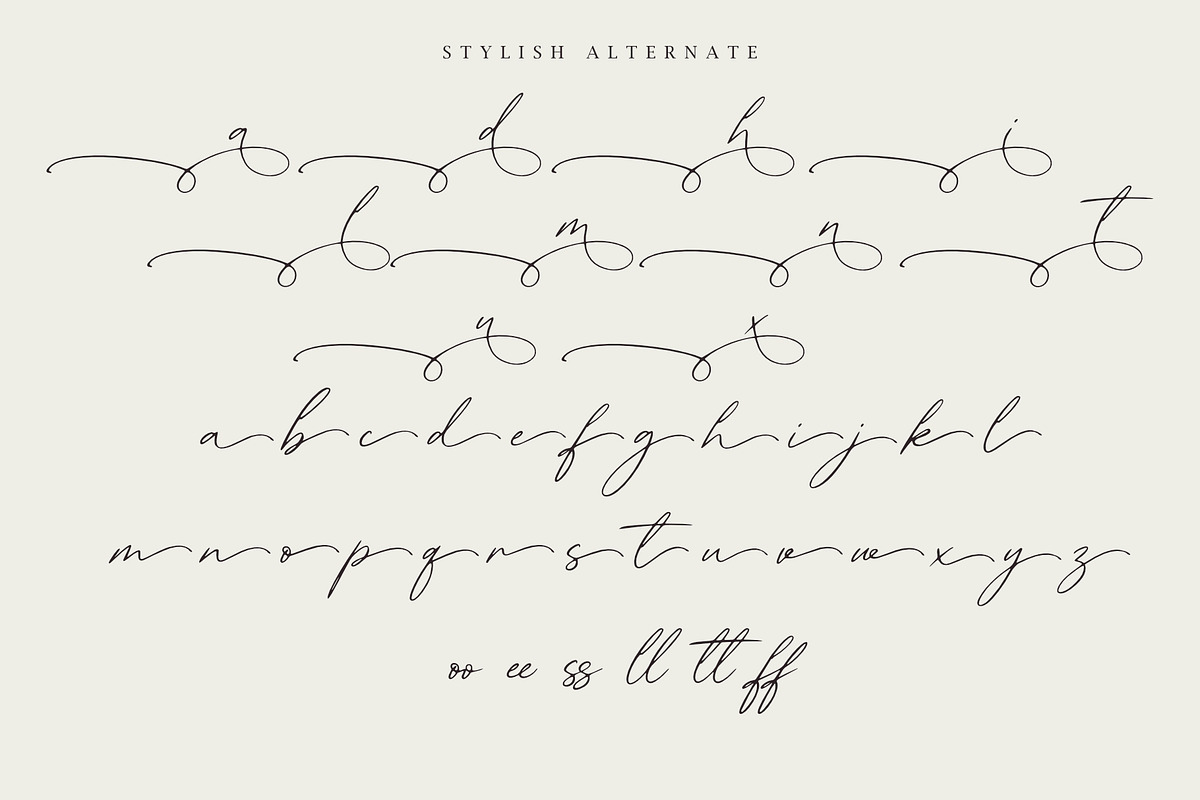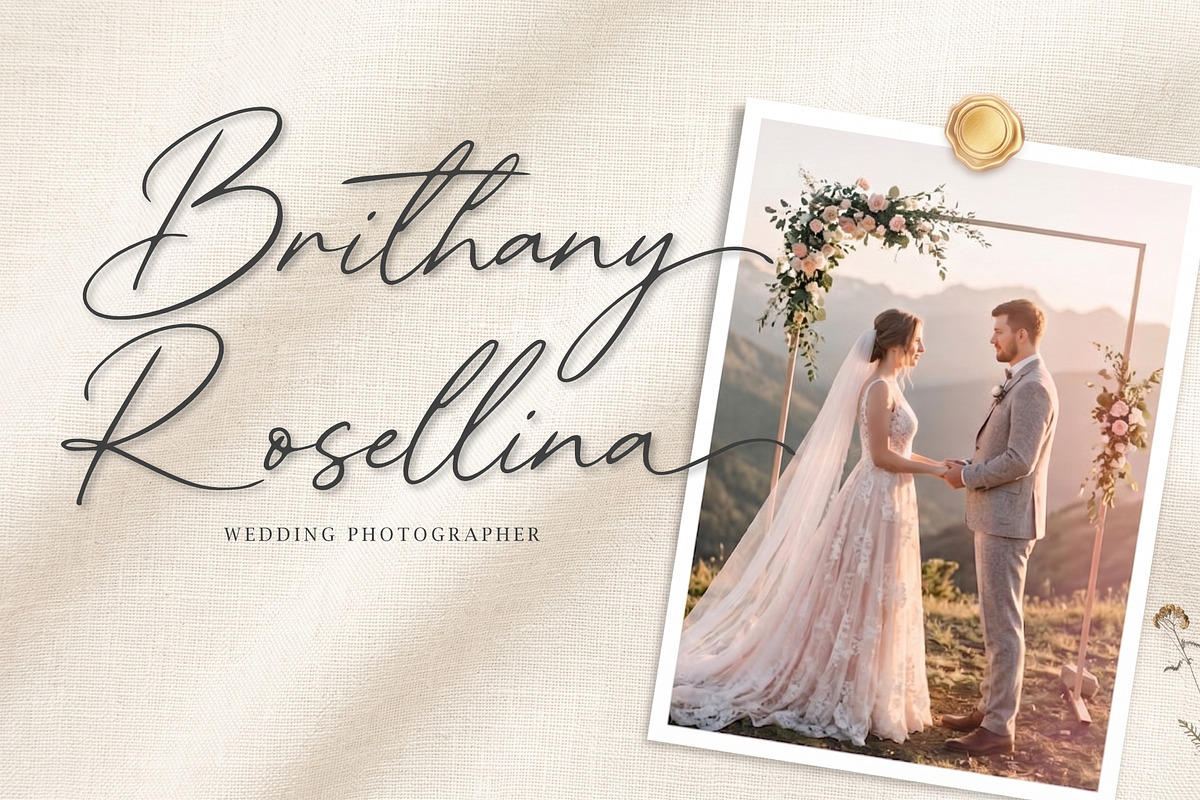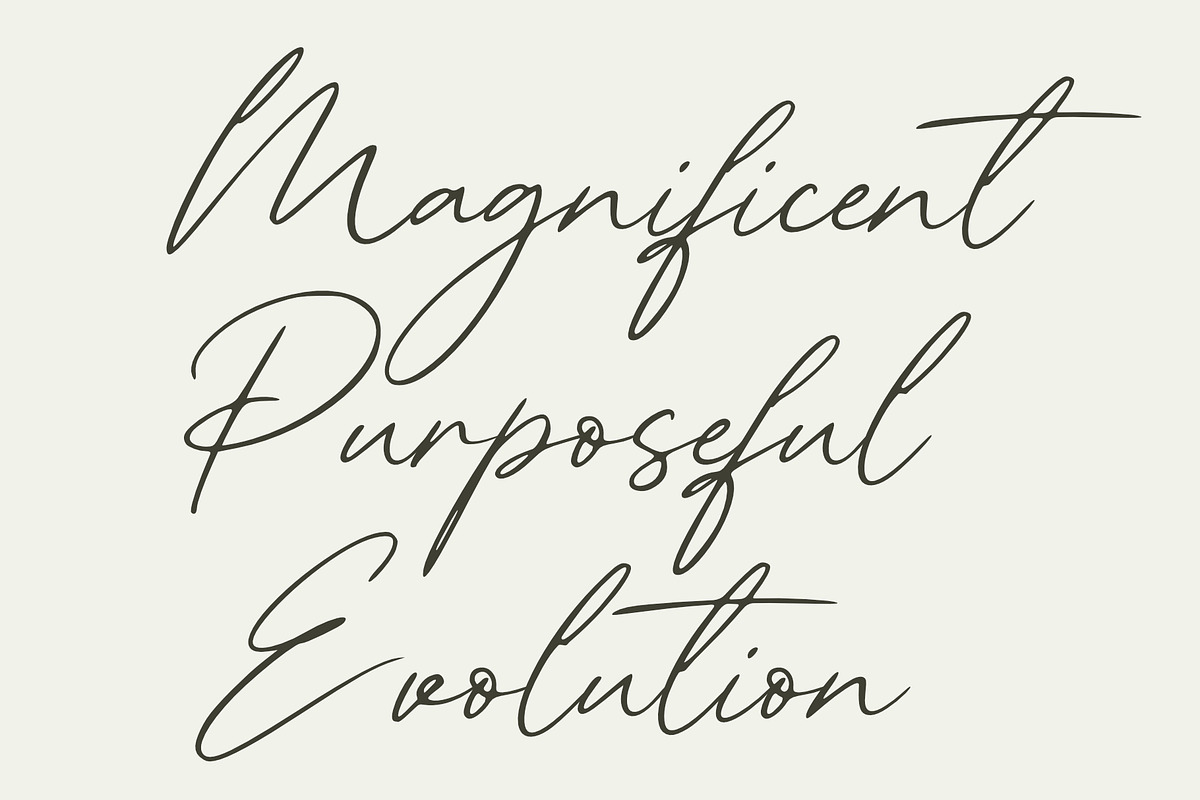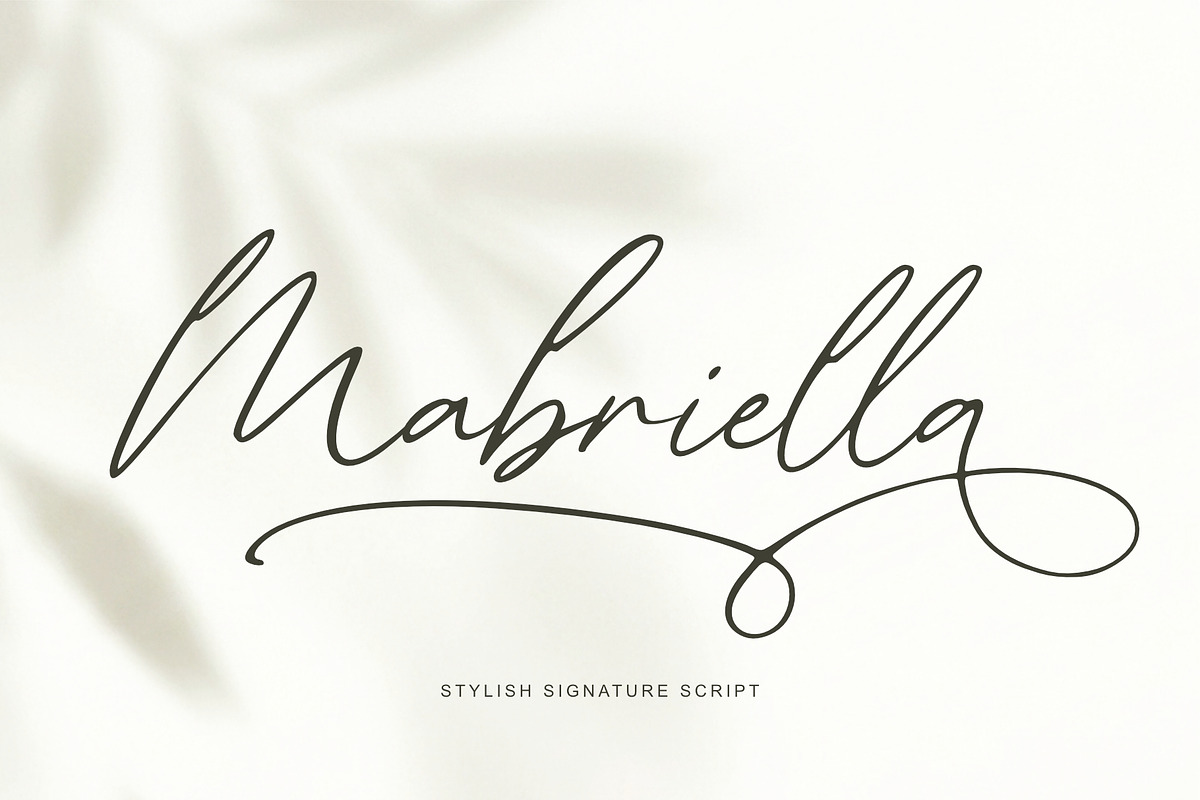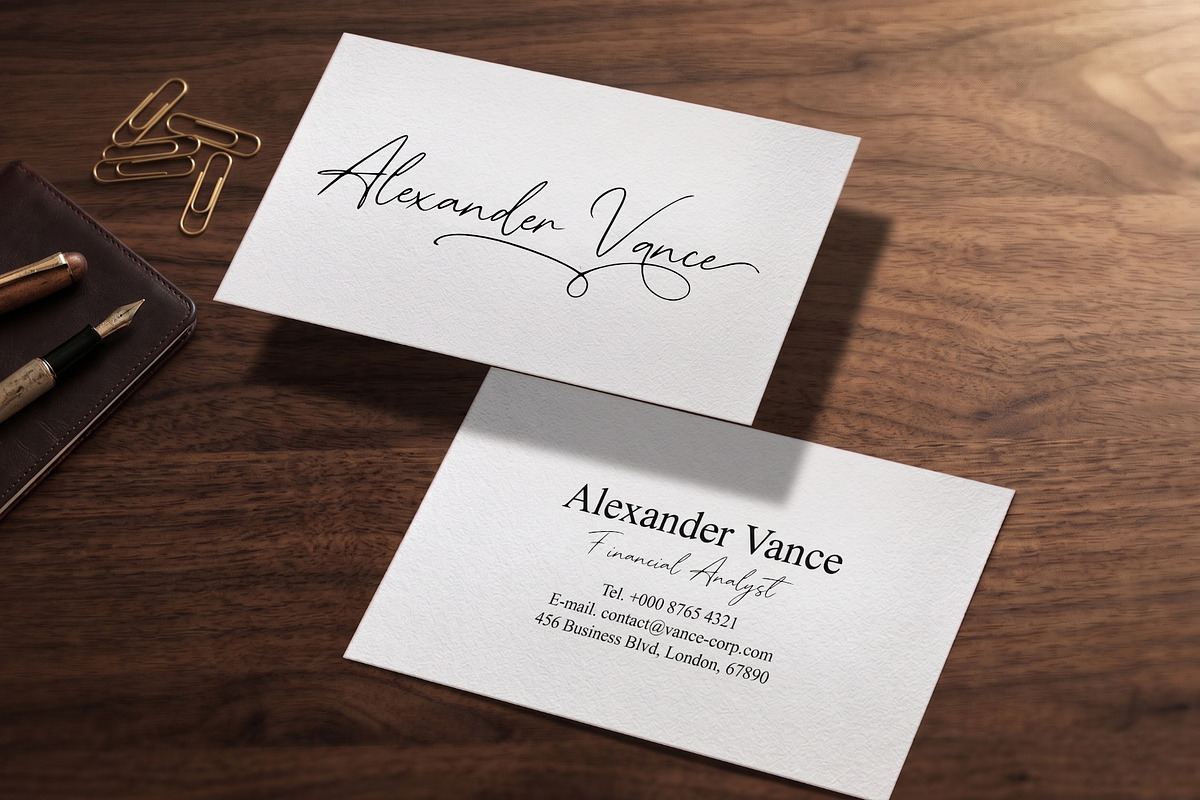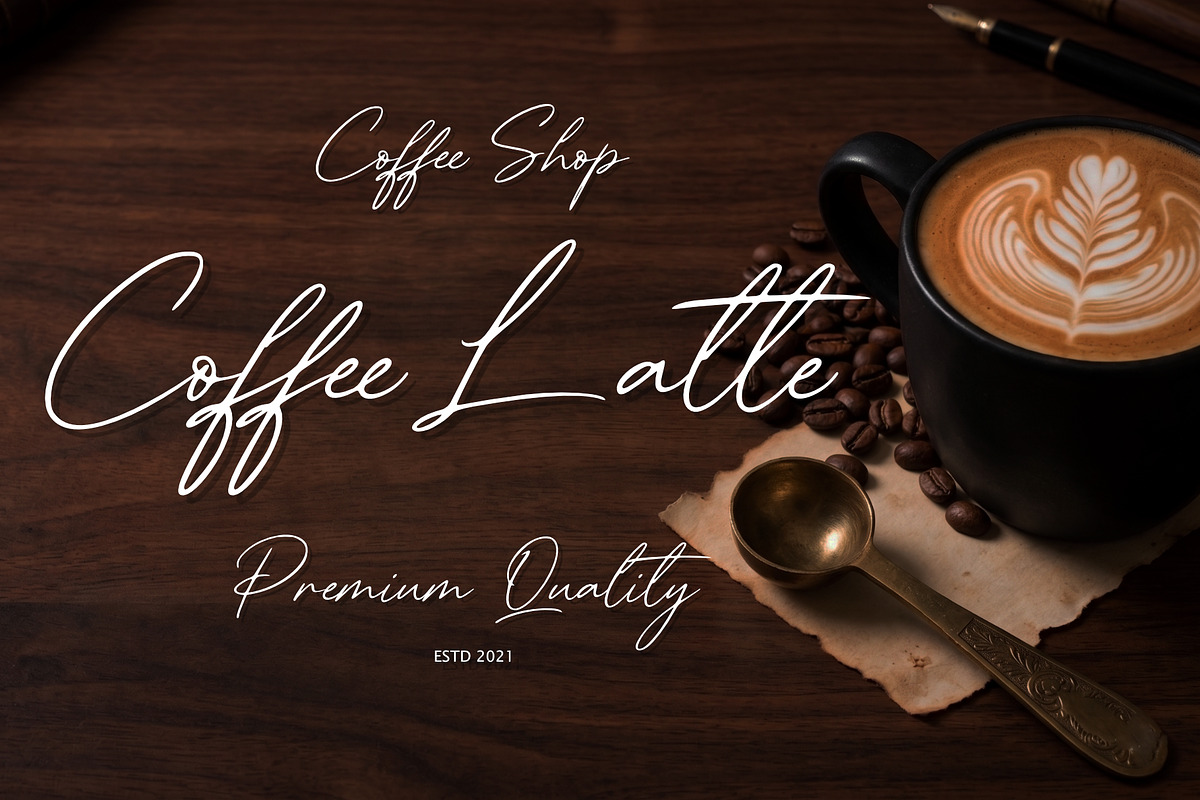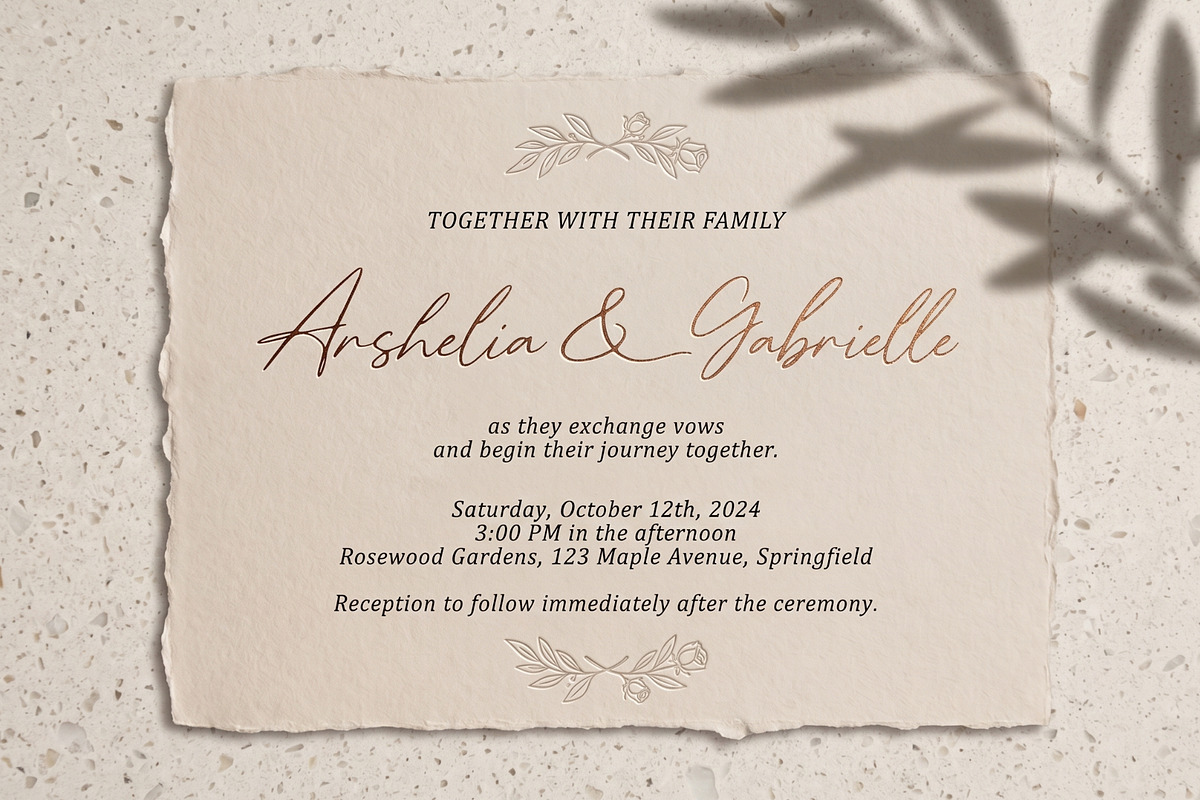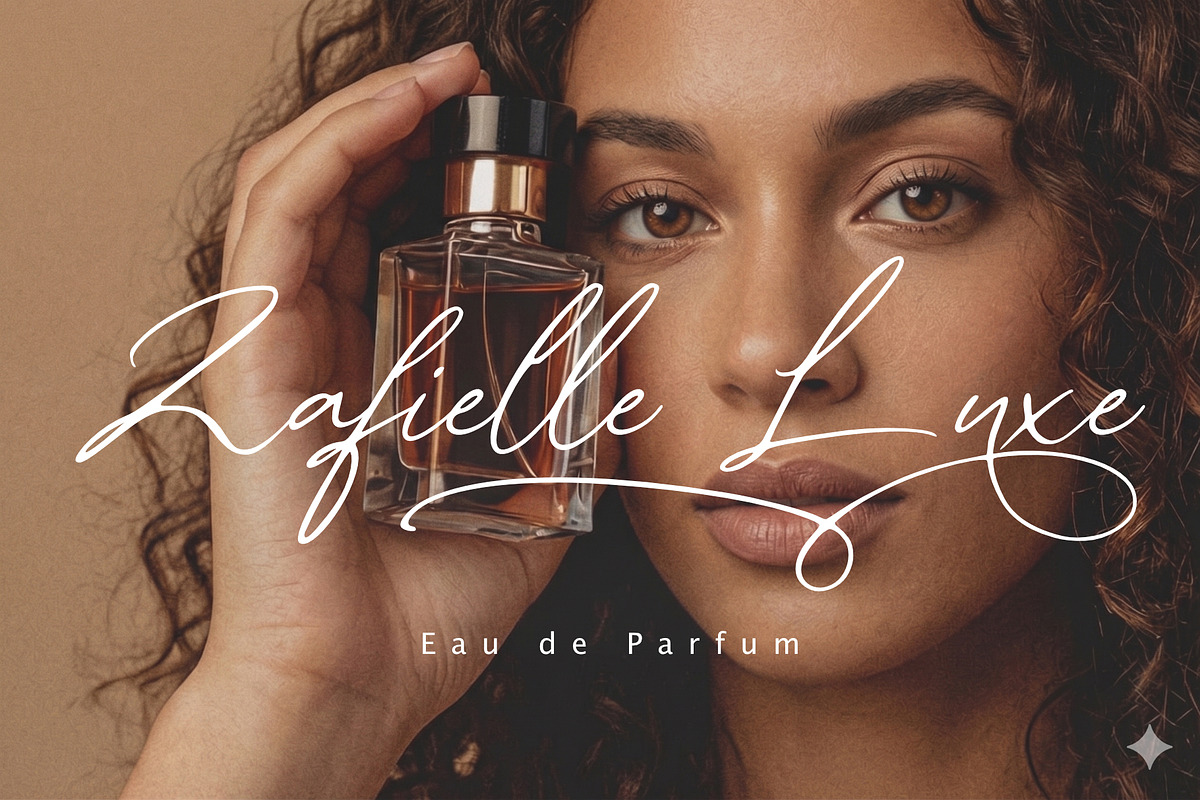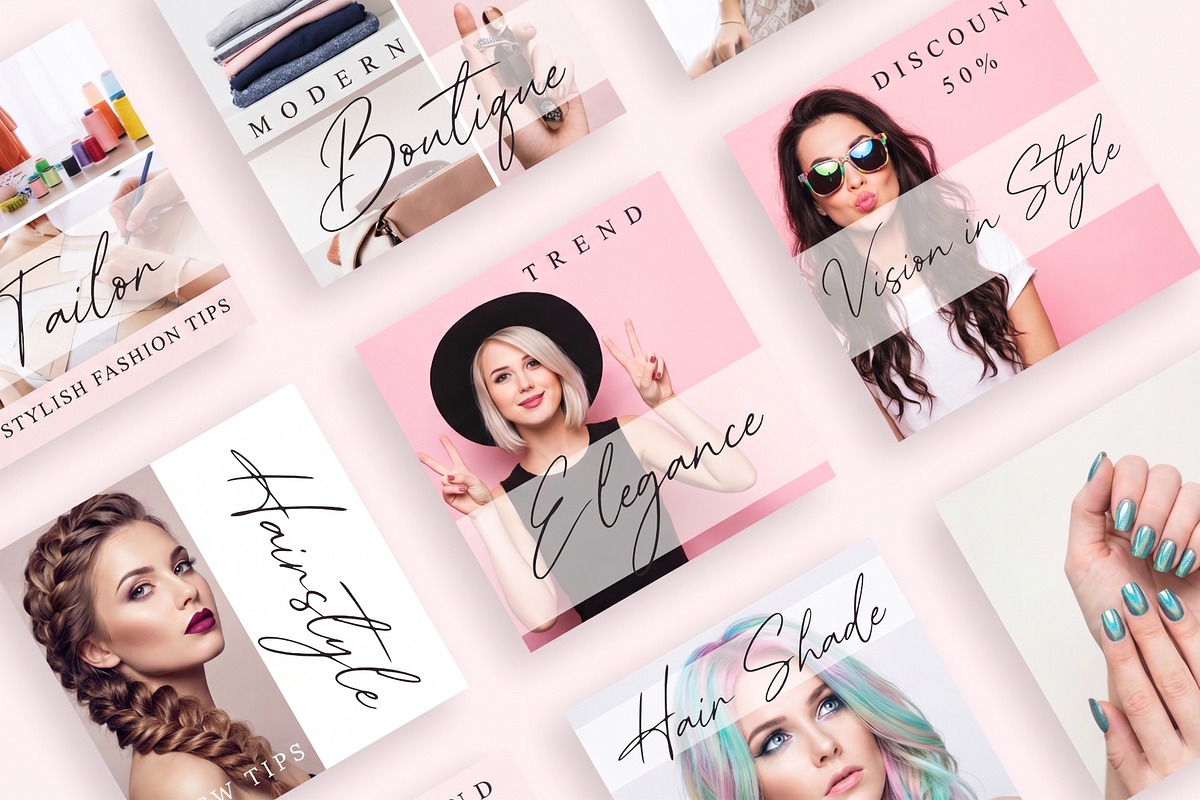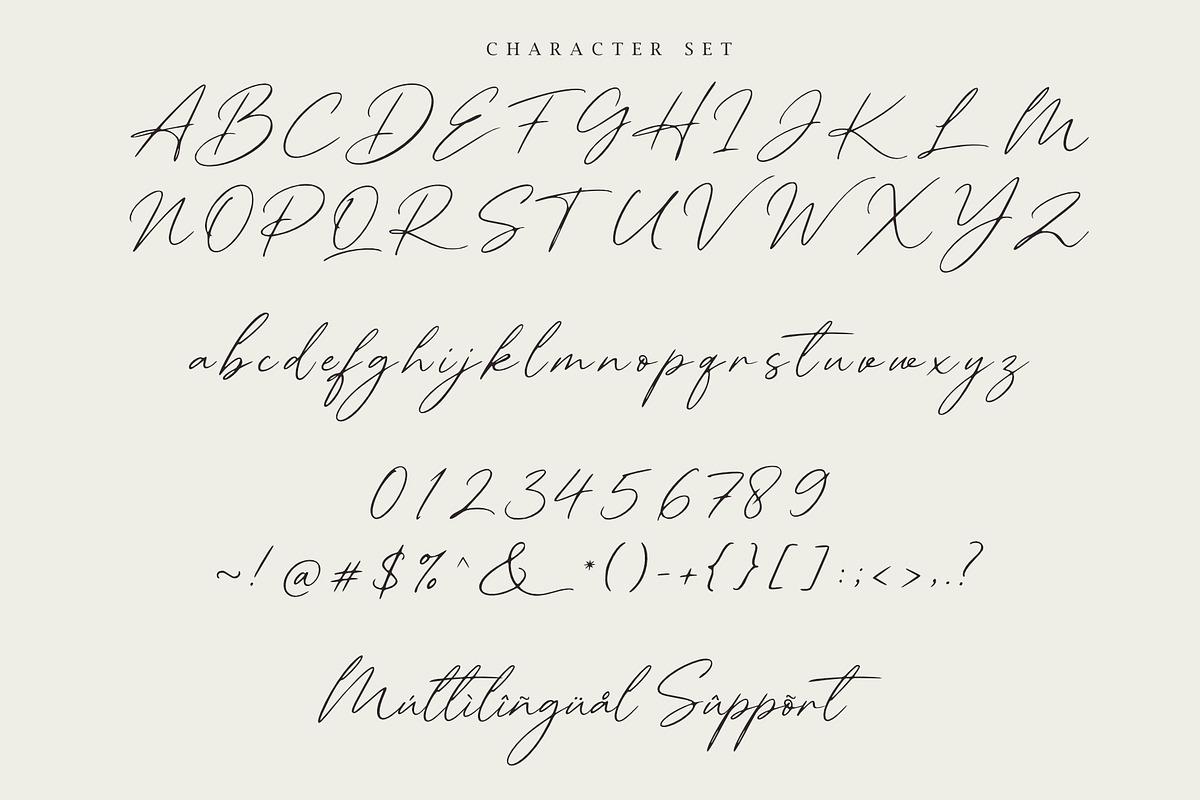
Mabriella - Stylish Signature Script
Mabriella Script is a refined signature font that captures elegance, charm, and a natural handwritten flow. Designed with smooth curves and stylish strokes, Mabriella Script brings a modern yet timeless feel to your creative work. This font is a perfect choice for a wide range of design needs such as logos, branding, invitations, wedding projects, magazine layouts, social media graphics, product packaging, labels, photography watermarks, quotes, and many other creative applications that require a sophisticated touch.
Complete Standard Glyphs
Beautiful Alternates & Ligatures